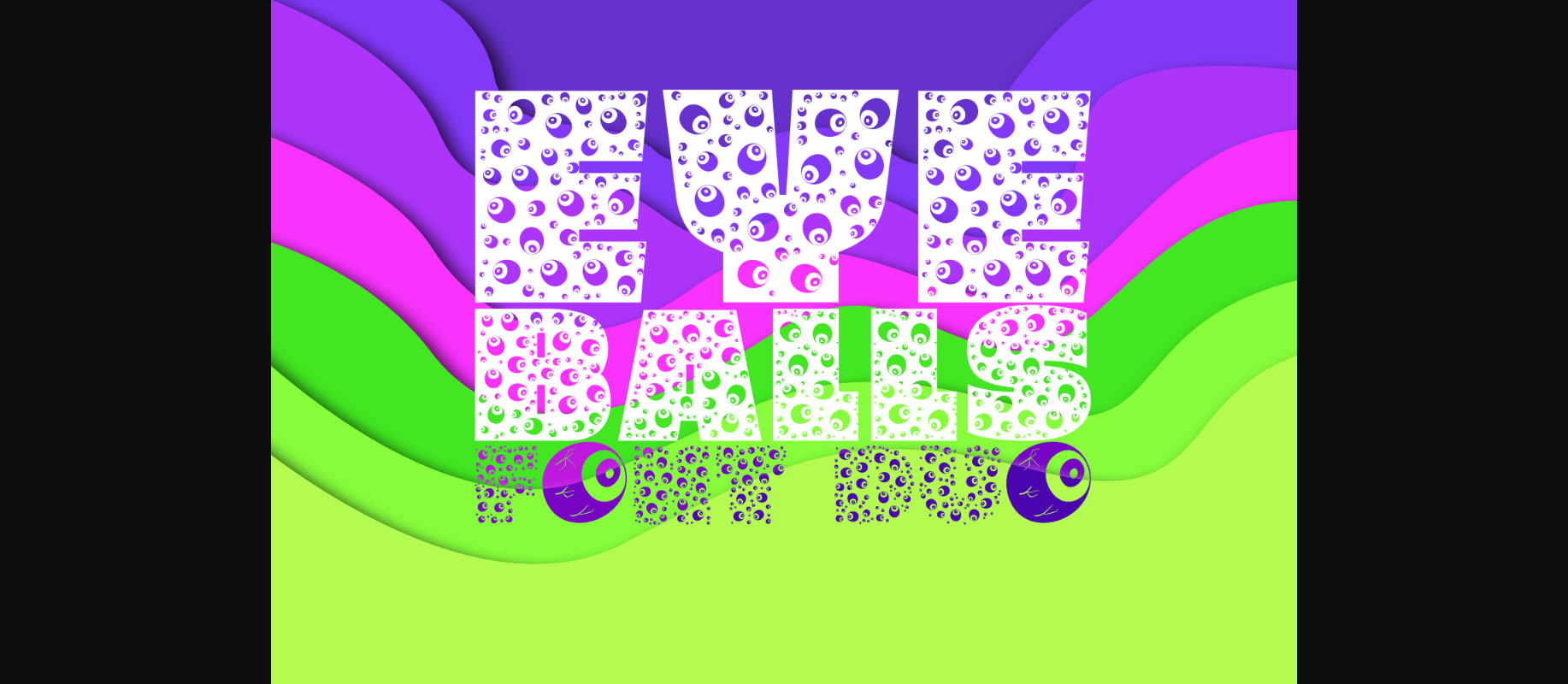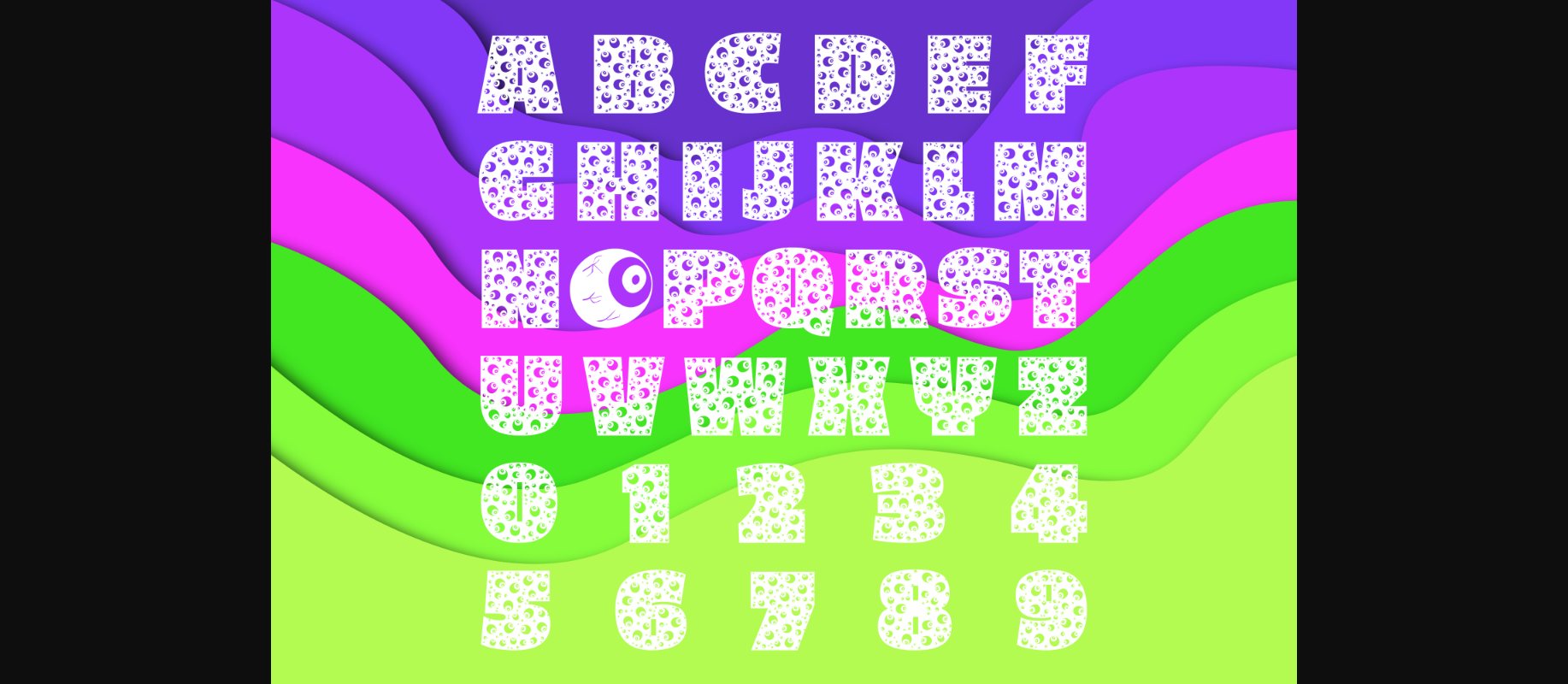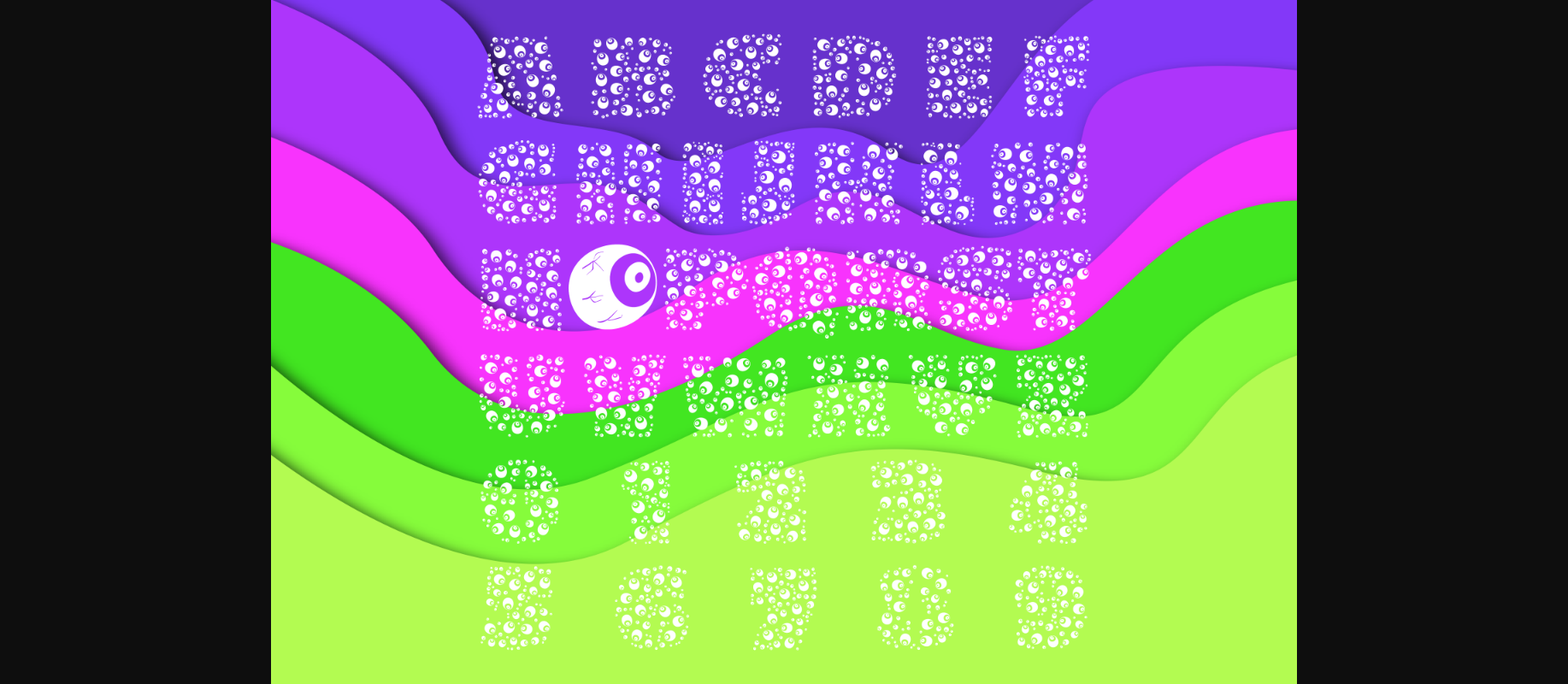
About Eye Balls Duo Font
Eye Balls Duo is an incredibly creepy and spooky decorative font. Add it to each of your Halloween designs, and they will instantly stand out.